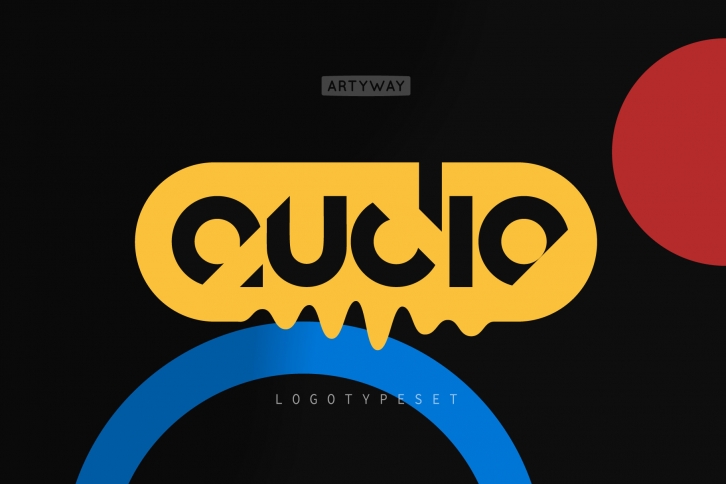
Audio feels equally cool and modern. It looks stunning on wedding invitations, thank you cards, quotes, greeting cards, logos, business cards and every other design which needs a customized touch.